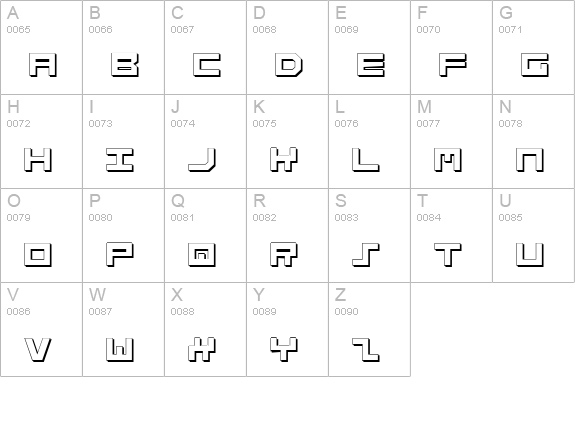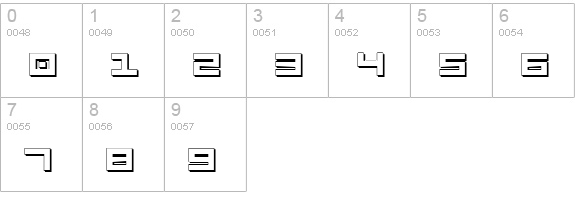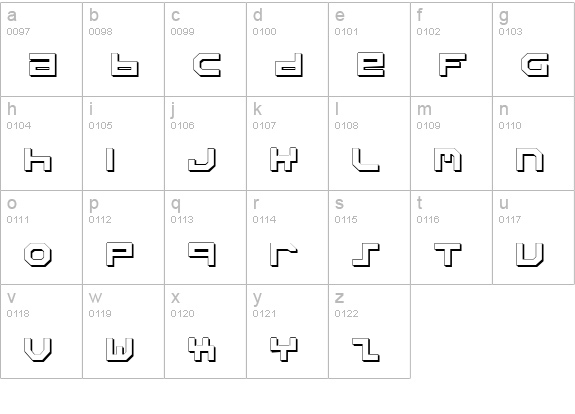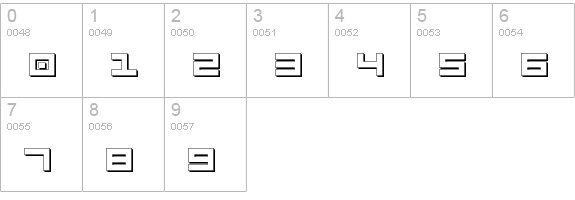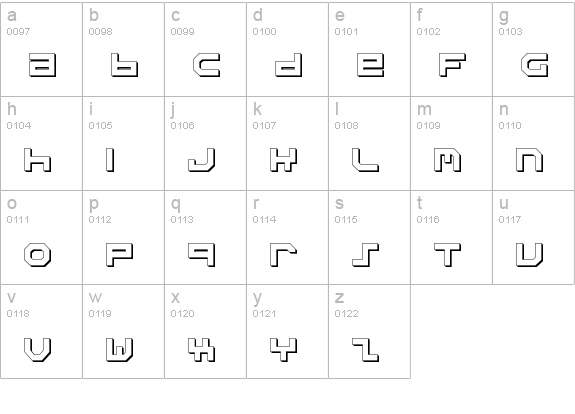
Introducing Stuntman Shadow font - a sleek and dynamic typeface perfect for adding a touch of excitement to your designs. With its bold and energetic appearance, this font is sure to make a statement and grab attention. The Stuntman Shadow font features a unique shadow effect that adds depth and dimension to your text, making it stand out from the crowd. Best of all, Stuntman Shadow font is completely free to download at FontsMarket.com. Whether you're working on a poster, logo, or any other creative project, this font is a versatile choice that will bring a sense of drama and style to your work. Don't miss out on the opportunity to add this eye-catching font to your collection - download Stuntman Shadow today!